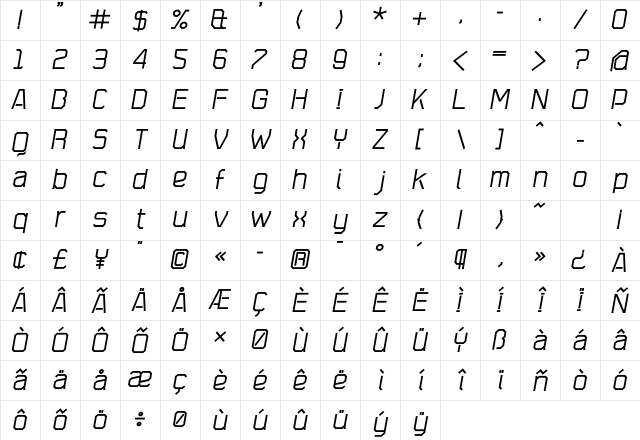
Plotta Bold Italic Free Font
Plotta Bold Italic
Complete Plotta Bold Italic glyph index. Displaying only characters natively supported by Plotta Bold Italic font.
Design Context for Plotta Bold
Plotta Bold is a composed and adaptable typeface that performs quietly and consistently across a wide range of design contexts. The slanted form adds forward momentum and visual energy. Its bold stroke weight gives it real presence on the page.
Pro Tip: Use Plotta Bold for emphasis, pull quotes, and subheadings where its slanted energy can add rhythm to the layout.